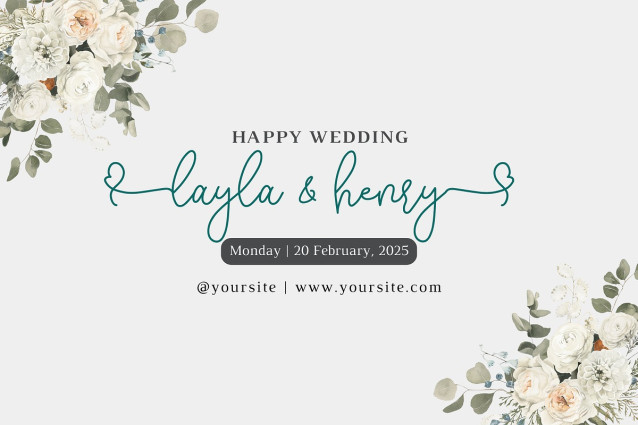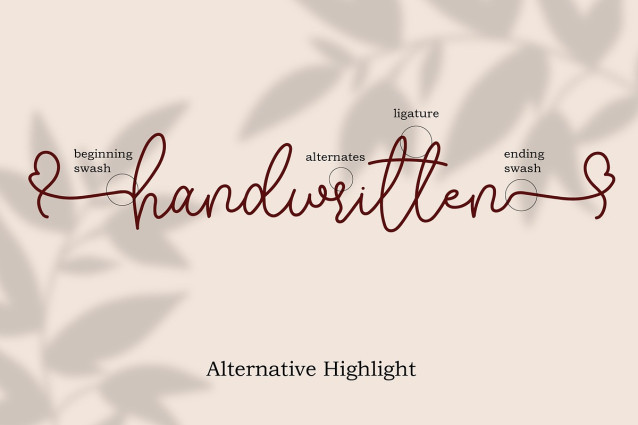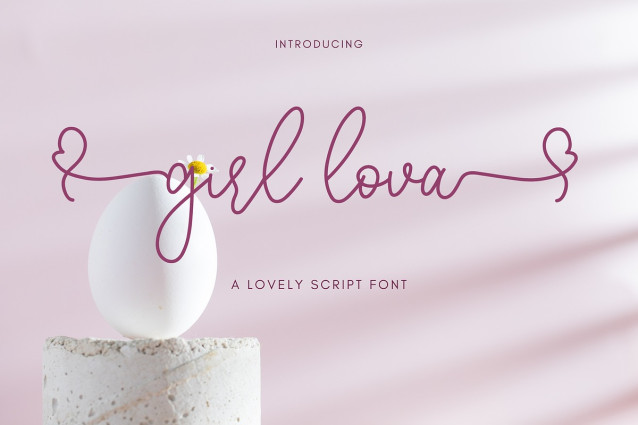
Girl Lova Handwriting Font
Girl Lova Handwriting Font is a lovely script font. Its charm makes it appear wonderfully, readable, and, ultimately, incredibly versatile.
Comes in Regular and Italic styles. Equipped with beginning and ending love tail.This font will look outstanding in any context, whether it’s being used on busy backgrounds or as a standalone headline!